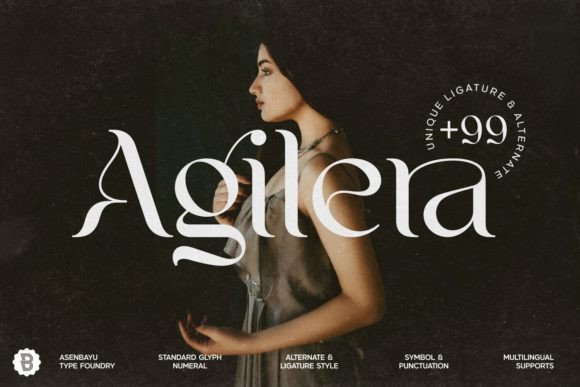
The Agilera Font: A Stunning Ligature Font for Modern Designers
I still remember the frustration of working on a project, pouring my heart and soul into every detail, only to get stuck on one thing: finding the perfect font. It was for a client’s luxury brand, and I needed something that exuded elegance, sophistication, and a touch of modernity. That’s when I stumbled upon the Agilera font, and it was love at first sight! 💫
Agilera is a unique and elegant ligature font that has taken my design game to the next level. Influenced by the Art Nouveau style, it incorporates flowing, organic lines and curves that add a touch of drama and visual appeal to any design project.
A Closer Look: What I Love About Agilera
- ✨ Elegant Ligatures: Agilera’s ligatures are beautifully crafted, creating a seamless flow of text that’s perfect for high-end branding and packaging designs.
- ✅ High Contrast: The font’s high contrast between thick and thin strokes adds a level of sophistication and drama, making it perfect for attention-grabbing designs.
- 💡 Versatility: Agilera is suitable for a wide range of design projects, from trendy packaging labels to unique logos, posters, and fashion designs.
While Agilera is an amazing font, there are a few quirks to consider:
- 🤔 Ligature Limitations: Some users have reported that the ligatures can be a bit finicky, especially when using certain software or platforms.
- ⚠️ Glyph Limitations: Agilera’s glyph set is extensive, but some users may find that it’s missing a few specific characters or symbols.
The Story Behind Agilera
Agilera was designed with the intention of capturing the essence of Art Nouveau, a style characterized by flowing lines, organic curves, and a sense of elegance. The font’s creator aimed to craft a font that would evoke a sense of luxury and sophistication, while still being modern and versatile.
| Is Agilera suitable for body text? | While Agilera is an elegant font, it’s best suited for headlines, titles, and short paragraphs. For body text, a more legible font may be more suitable. |